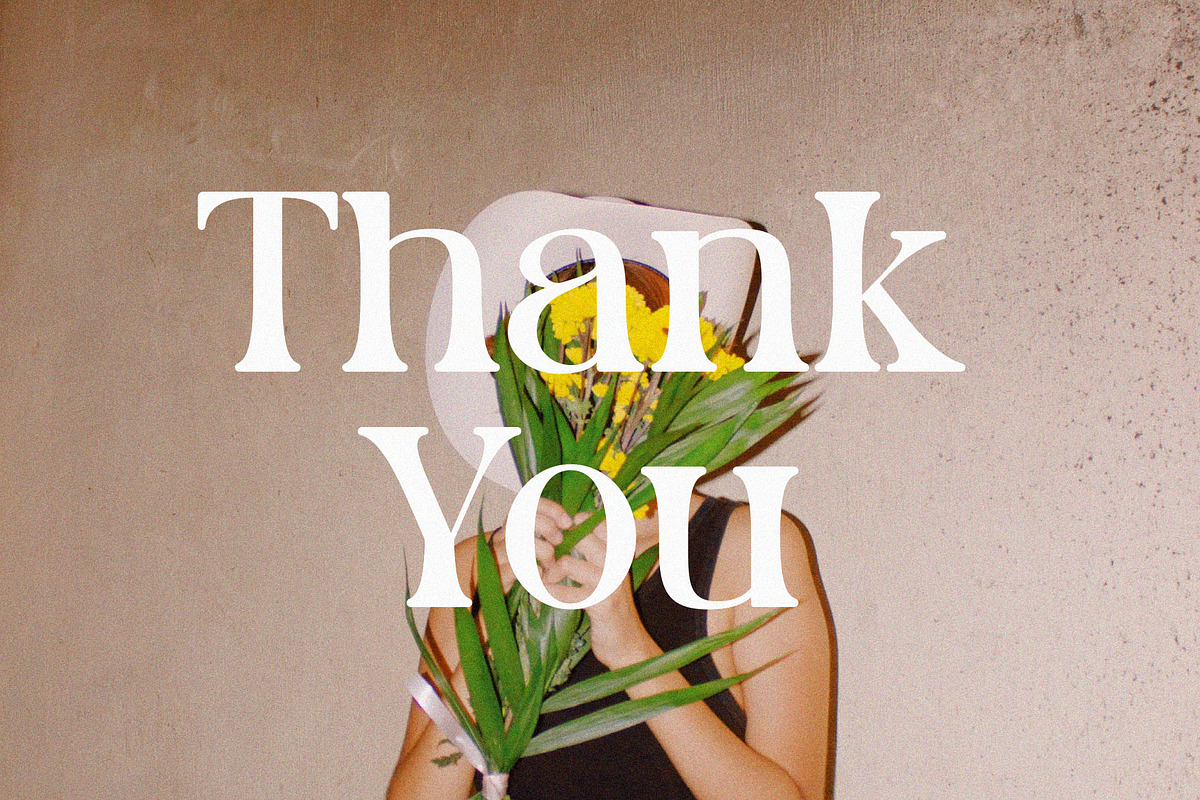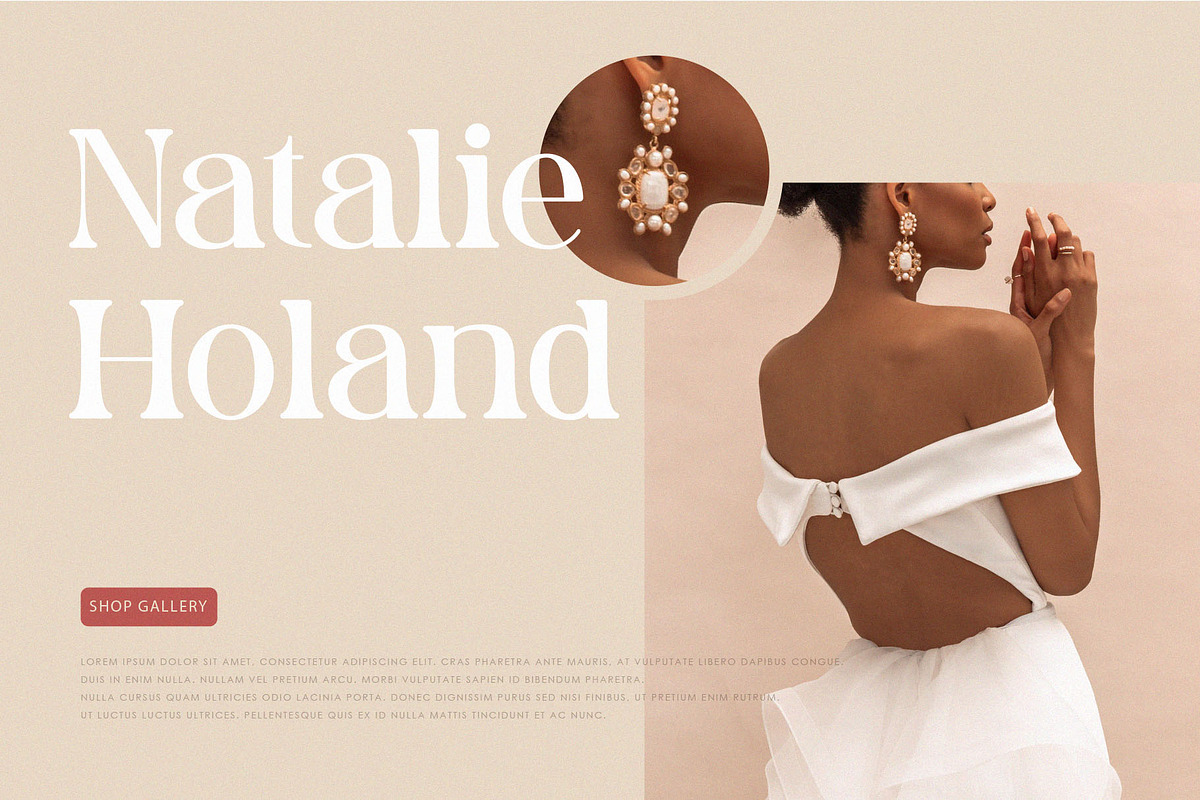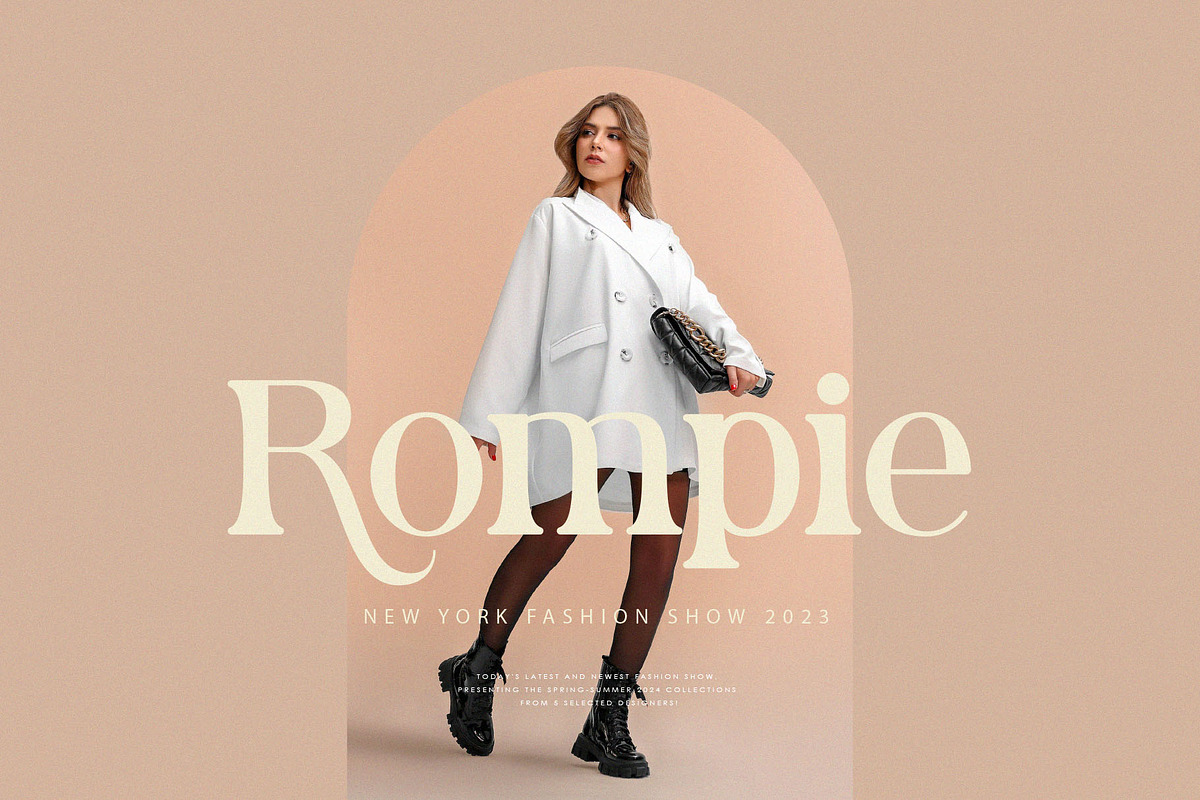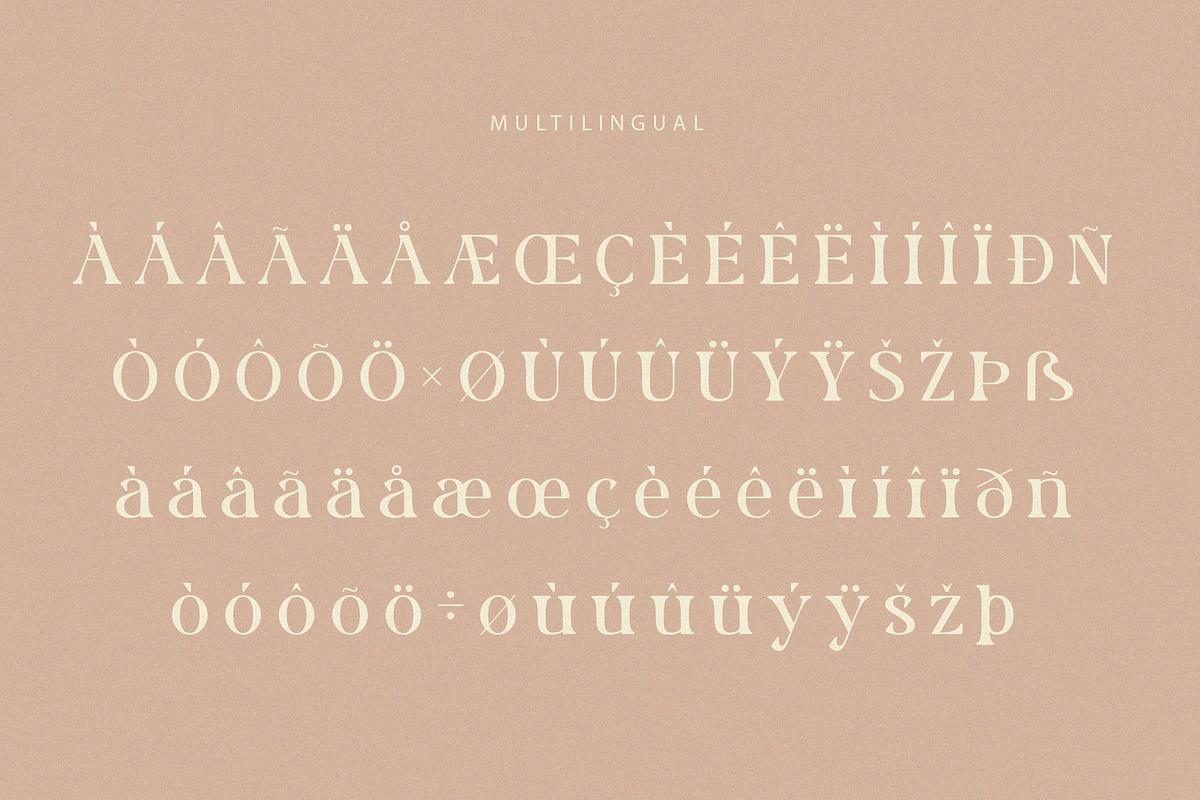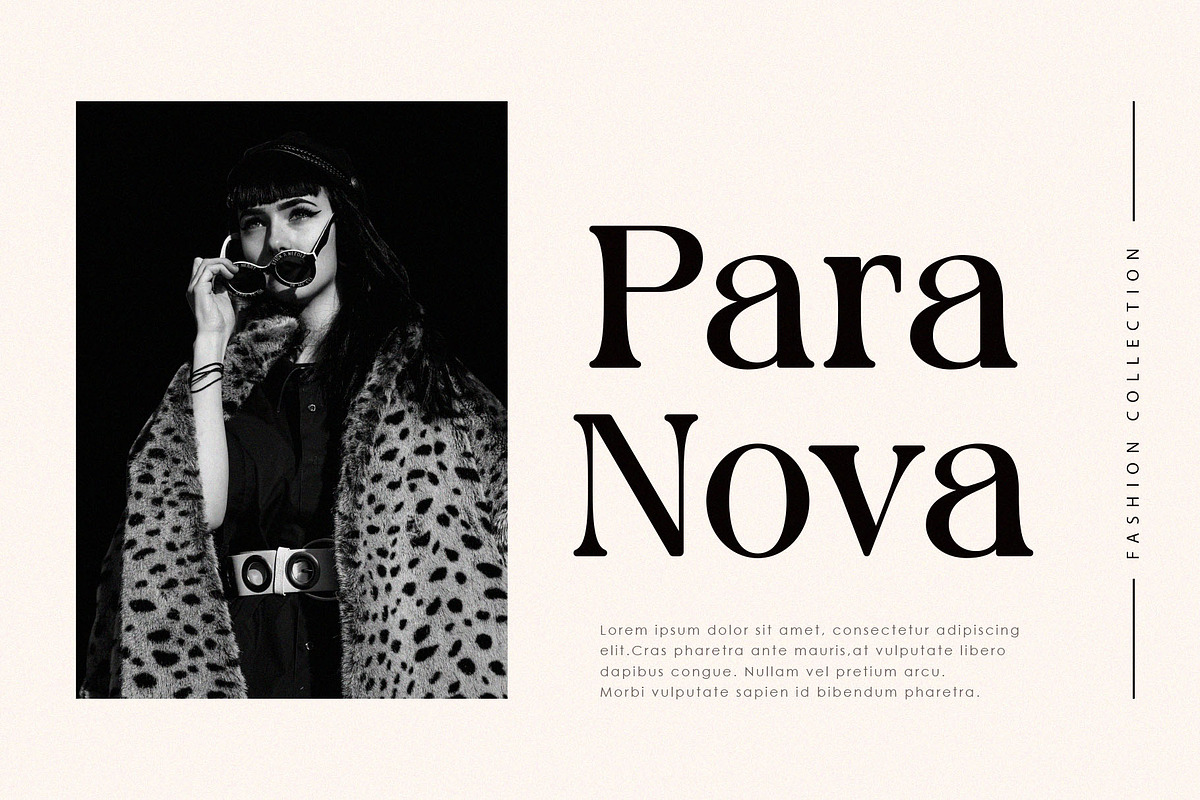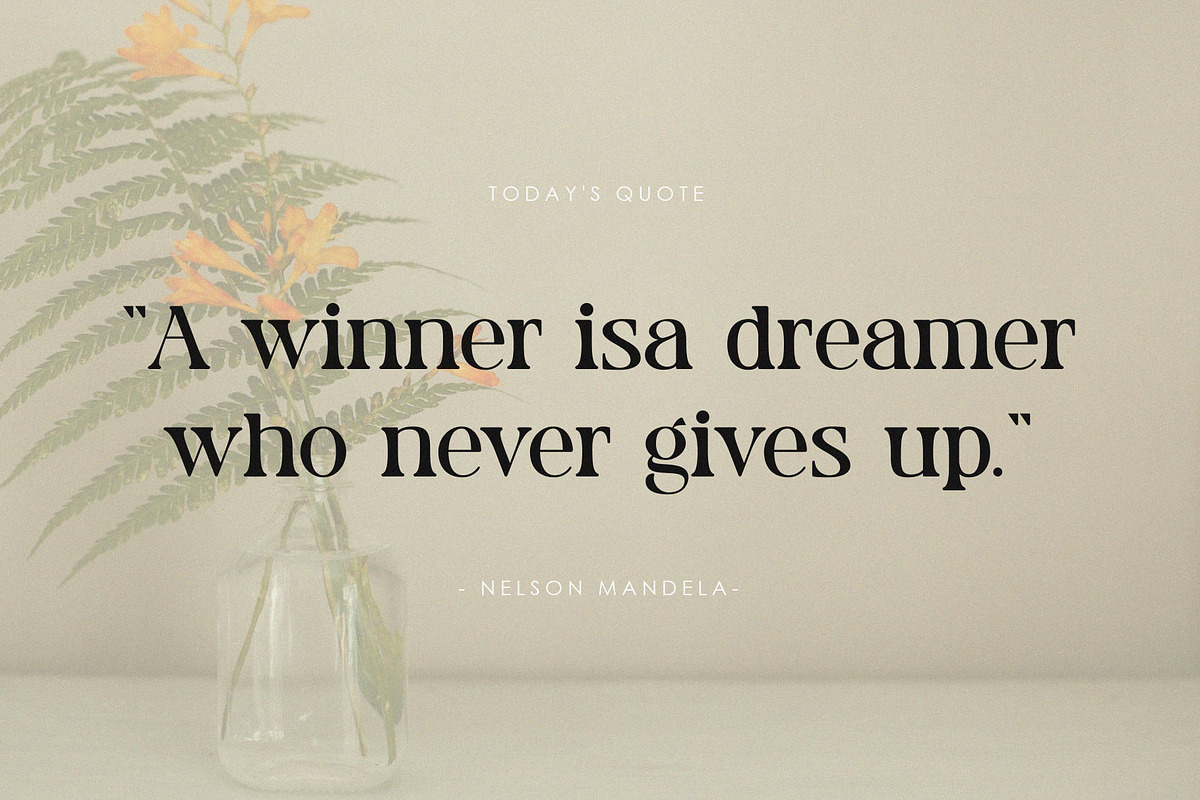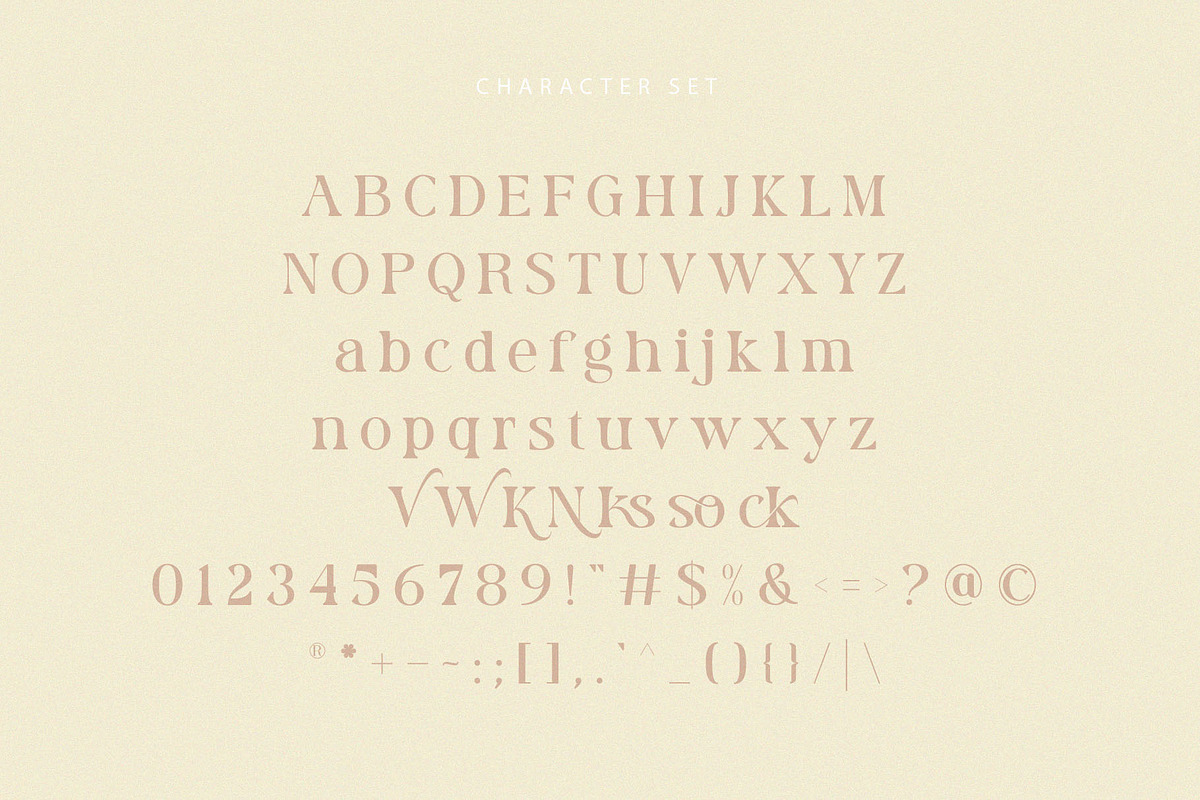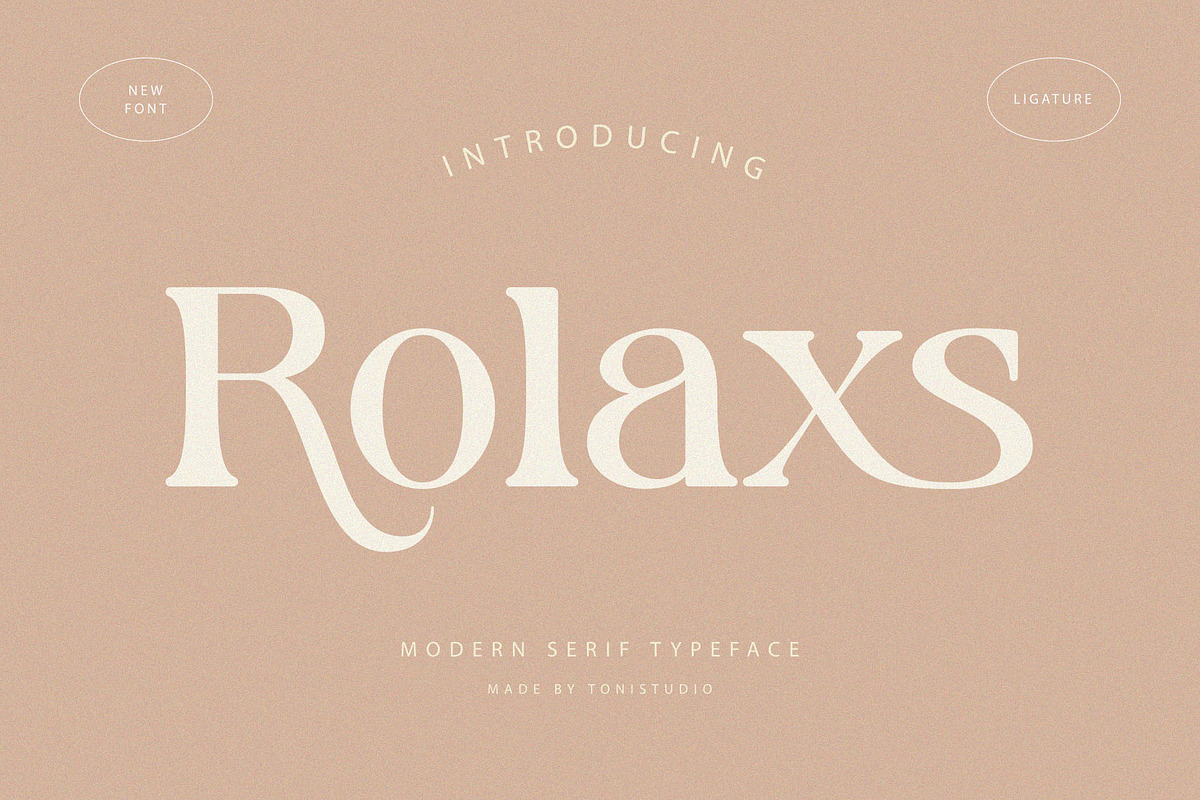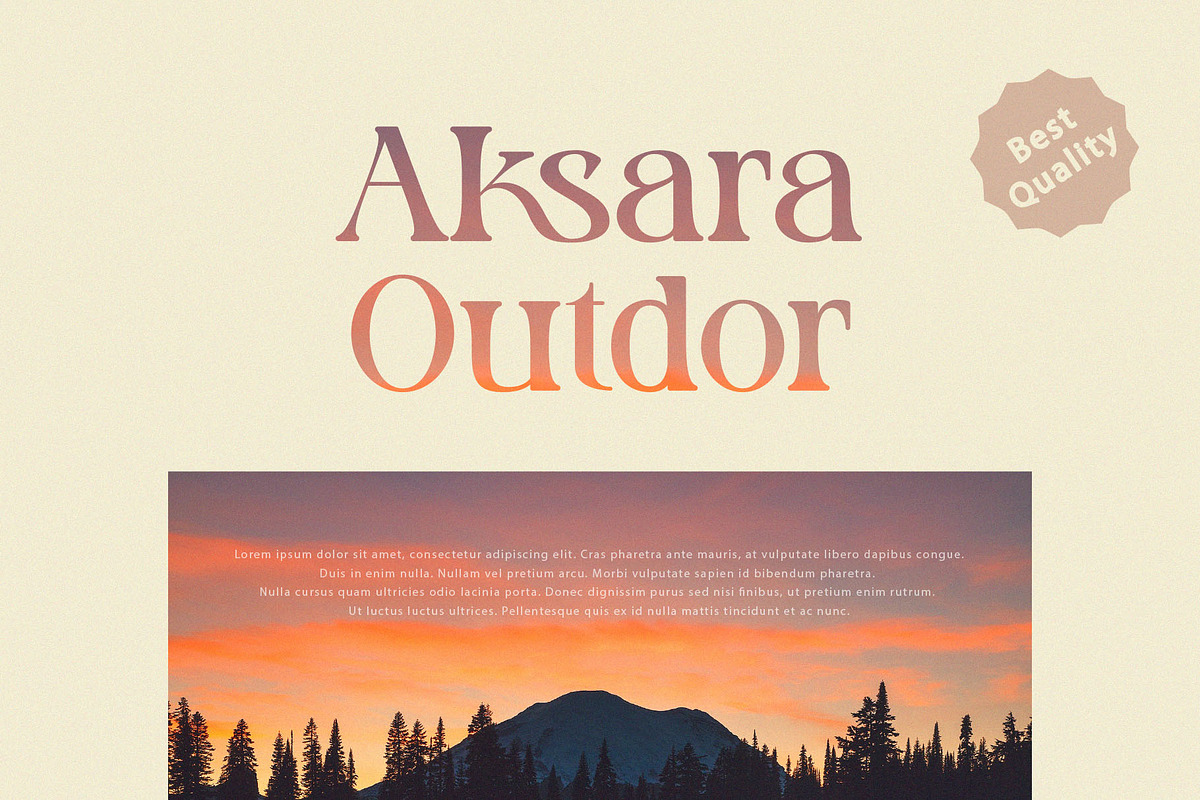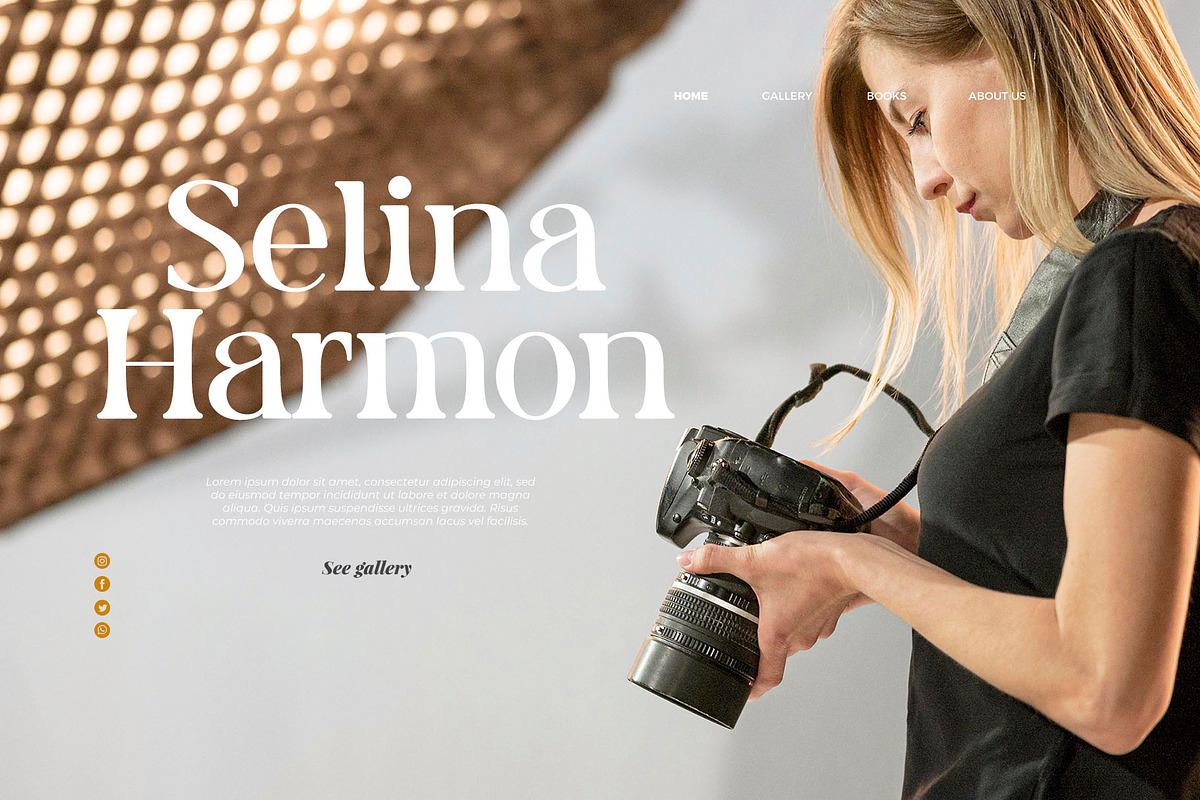
Rolaxs
Rolaxs Font is a Modern Serif font with a thicker appearance with thicker lines but blunt at the ends where each side meets so it has a modern appearance and is designed with a retro feel. Comes with binders to help create amazing logos, quotes, posts, blog posts. branding projects, magazine imagery, wedding invitations and more.